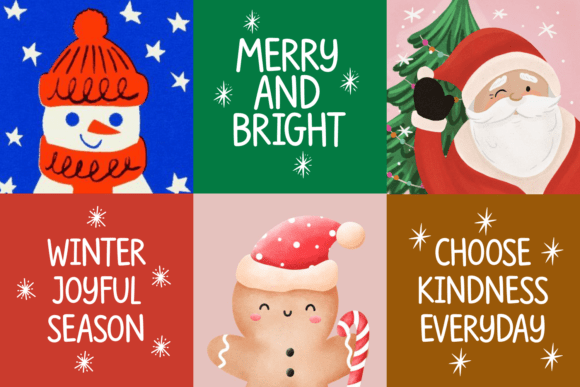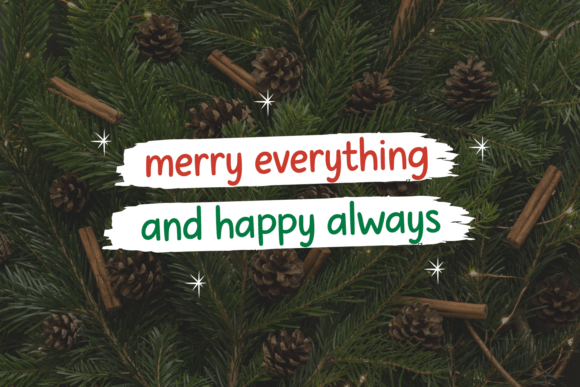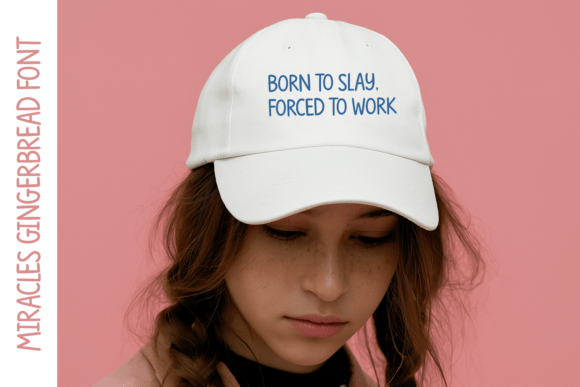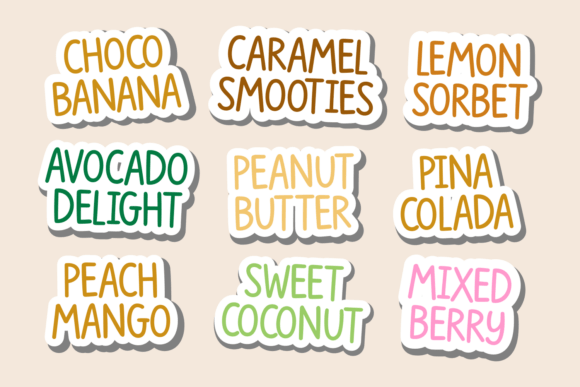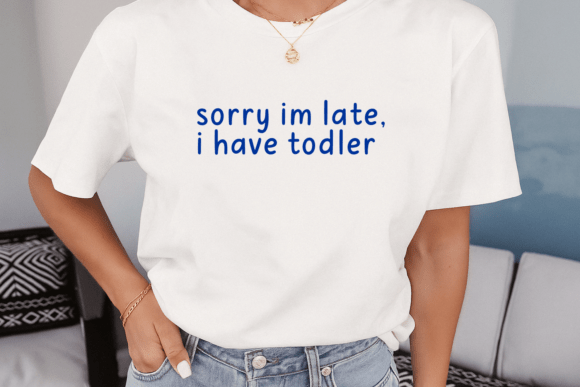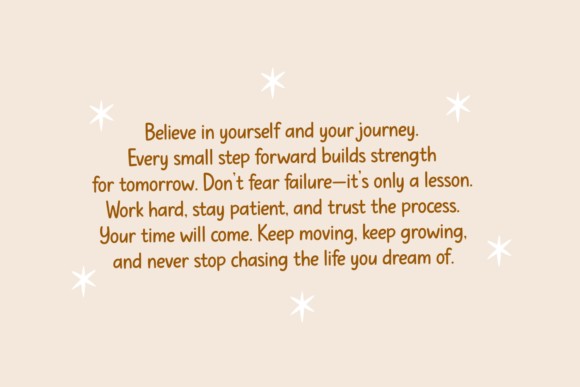
Introduction to Miracles Gingerbread Font
Do you remember the magic of decorating your Christmas tree as a child, surrounded by twinkling lights, colorful ornaments, and the sweet scent of gingerbread? For many of us, this festive season is a time of joy, creativity, and making memories with loved ones. As a designer, you’re likely no stranger to the challenge of capturing this spirit in your projects. That’s where the Miracles Gingerbread Font comes in – a delightful, handwritten font that brings warmth and charm to your creative endeavors.
Whether you’re working on a festive greeting card, a product packaging design, or a social media post, the Miracles Gingerbread Font is the perfect addition to your design resource library. Its smooth, rounded strokes and minimalistic design make it a high-quality choice for any project, and its transparent background ensures seamless integration with your design. With its cheerful and versatile style, this font is not just limited to Christmas themes – it’s a valuable asset for designers looking to add a playful, handwritten touch to their work.
Key Features of Miracles Gingerbread Font
• High-quality design resource for creative projects, offering a unique and festive look.
• Perfect for holiday-themed designs, greeting cards, and other festive projects, adding a touch of whimsy and magic.
Honest Review: Miracles Gingerbread Font
I recently stumbled upon the Miracles Gingerbread Font while searching for a design resource to add a festive touch to a creative project. I was excited to give it a try, and I’m glad I did! ✨
• The Miracles Gingerbread Font has a lovely, traditional feel to it, perfect for a winter wonderland or holiday-themed design.
• The high quality of the font is evident, with crisp lines and a smooth texture that makes it a joy to work with.
• The transparent background makes it easy to combine with other design elements and backgrounds.
However, I did notice a few limitations ⚠️:
• The font is only available in a few weights, which may limit its versatility in certain design projects.
• The font doesn’t come with a comprehensive character set, which may cause issues with international characters or special symbols.
Overall, I’m quite impressed with the Miracles Gingerbread Font. While it may not be perfect, it’s a great addition to any designer’s toolkit, especially for holiday-themed projects. With a little creativity, I’m sure it can be used in a wide range of creative projects.
Tips for Getting the Most Out of Miracles Gingerbread Font
For the best results, use Miracles Gingerbread Font on a transparent background to give your design a clean and modern look. Experiment with different font sizes and styles to create visually appealing combinations. You can also use the font in conjunction with other design resources, such as graphics and illustrations, to create a cohesive and engaging design.
Common Use Cases for Miracles Gingerbread Font
Miracles Gingerbread Font is a versatile design resource that can be used in various creative projects, such as:
• Food and beverage branding
• Children’s party invitations and decorations
• Blog and social media graphics
• Wedding and event invitations